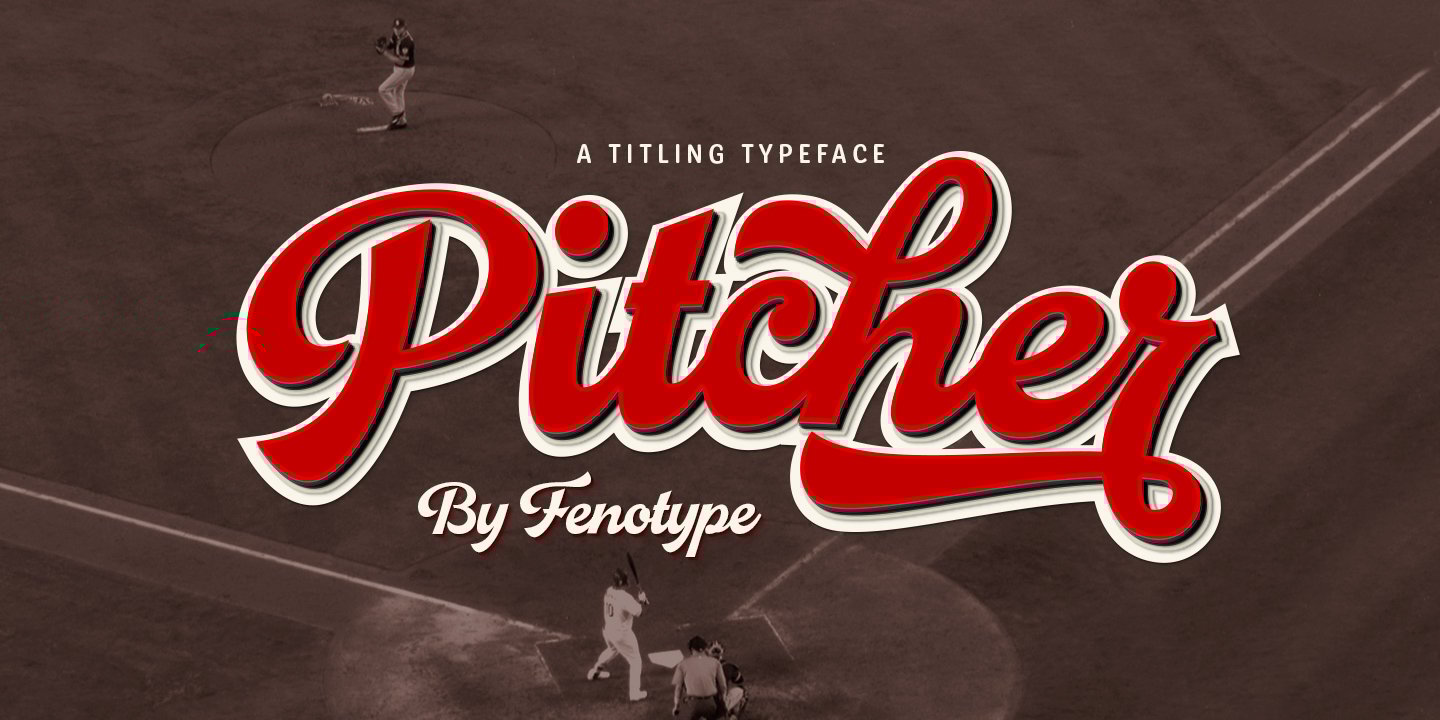
Pitcher Font is perfect for sports team branding, athletic merchandise designs, baseball stadium signage, vintage sports memorabilia, competitive league graphics, team roster displays, sports bar decorations, athletic club communications, and any design project that requires authentic sports heritage and championship-level visual impact.
What makes Pitcher Font so exciting is its powerful ability to capture the authentic spirit of American sports culture with letterforms that embody the confidence, determination, and competitive excellence that define athletic achievement. This font represents the essence of championship performance with its bold, athletic character shapes that feel forged in the heat of competition and perfected through countless victories. The carefully crafted characters feature strong, decisive strokes and confident proportions that communicate winning attitude and team spirit, creating the perfect typography solution for sports organizations that demand both authenticity and inspiring visual presence.
The Pitcher Font family typically includes multiple weight variations with comprehensive character sets featuring uppercase and lowercase letters, numerals, punctuation marks, and sports-related symbols. Some versions may offer additional styles like condensed or italic variants, along with team number options that provide designers with athletic flexibility for creating dynamic, championship-caliber layouts with genuine sports appeal.
Pitcher Font Free Download has gained tremendous popularity among sports designers, athletic organizations, and team branding professionals who specialize in competitive sports communications. This distinctive typeface excels in both digital and print applications where athletic authenticity and team spirit are essential for connecting with fans, players, and sports enthusiasts who live and breathe competitive excellence.
The font's sports-inspired design makes it particularly effective for professional teams, athletic equipment companies, sports entertainment venues, and competitive organizations that need to communicate winning tradition and athletic heritage. Its powerful character shapes and excellent visibility ensure professional results across various media formats.
Designers choose Pitcher Font for its ability to instantly convey athletic authority and championship spirit while maintaining professional functionality for commercial sports applications. The font's competitive construction works magnificently on everything from team uniforms to large-scale stadium displays.
Whether you're developing team identity systems, sports merchandise designs, athletic facility graphics, or competitive event materials, Pitcher Font delivers the perfect combination of sports authenticity and championship excellence that inspires victory and builds lasting team loyalty.